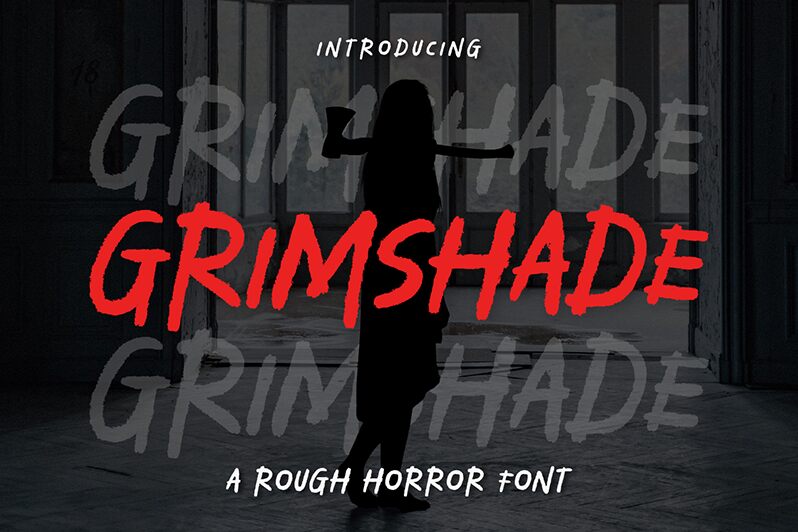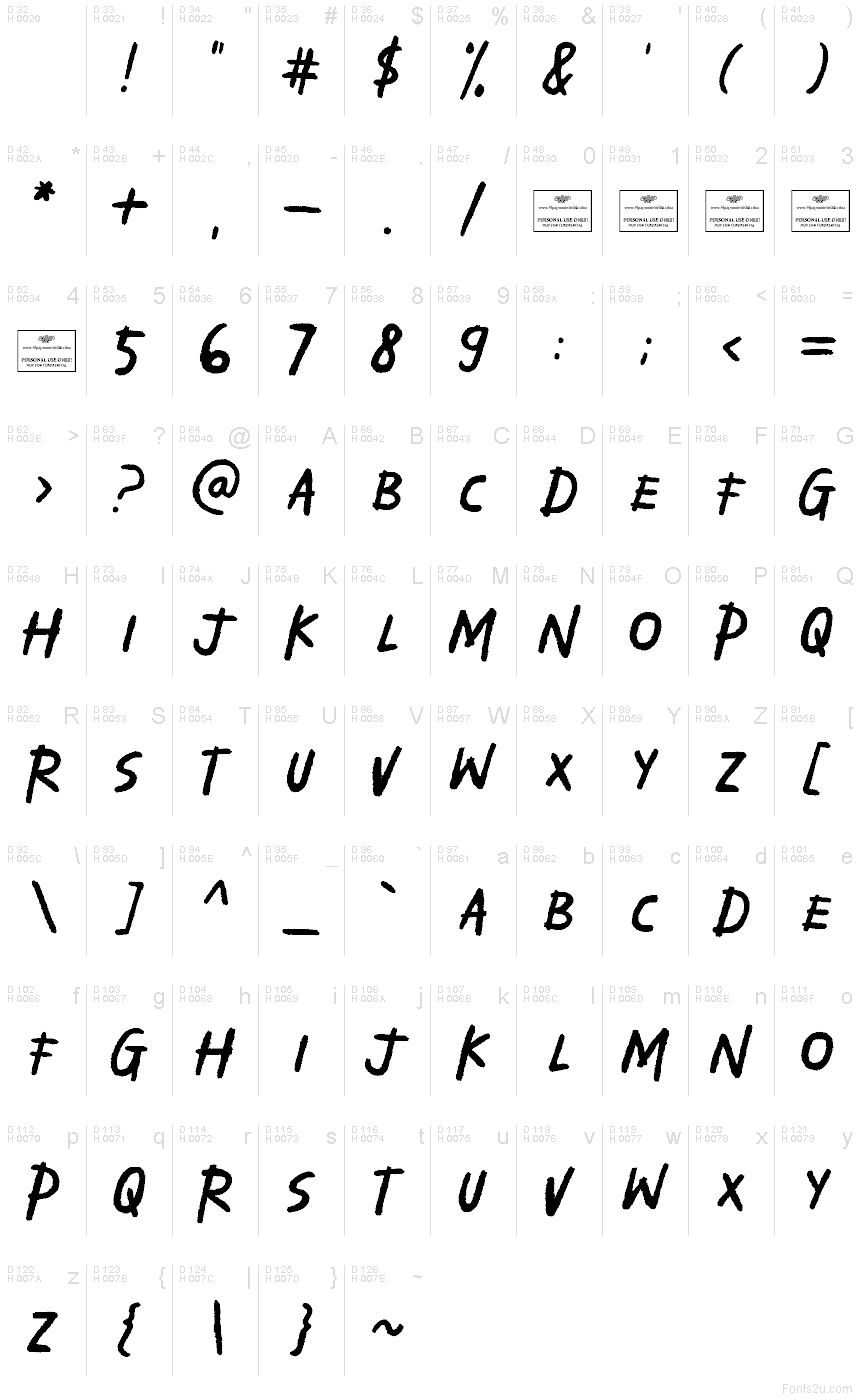
Grimshade
Grimshade font by Alpaprana Studio is a free scary display font that looks like it was slashed onto the page with a dry brush. Jagged strokes, quick angles, and slightly uneven heights give it a breathless, chase-scene energy while staying readable at a glance. The texture feels inky and scraped, adding grit without turning to noise.
Using Grimshade, headlines lunge off the layout—great for horror posters, Halloween flyers, thriller book covers, escape-room branding, game titles, and eerie YouTube thumbnails. This free font thrives at large sizes with tight tracking; pair it with a clean, low-contrast sans for body copy to keep the drama focused where it counts.